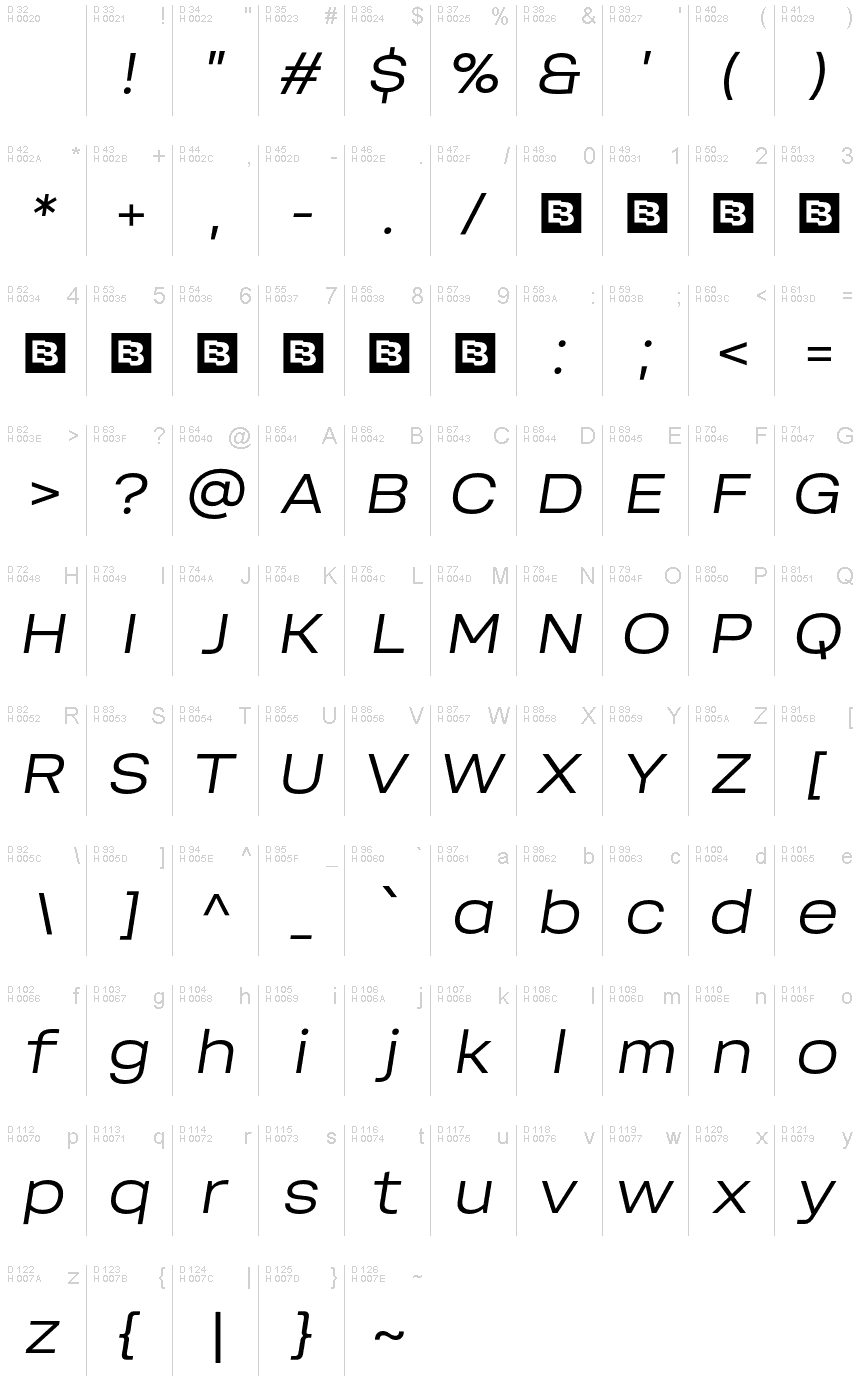
Soliden Expanded Oblique is a versatile and modern sans serif font designed by Eko Bimantara. With its semi-light weight and expanded width, this font exudes a bold yet elegant presence. Its oblique style adds a touch of sophistication to any design project.
Ideal for headlines and logos, Soliden Expanded Oblique will captivate attention in branding materials, fashion magazines, and luxury product packaging. Its versatility also makes it suitable for website headers, giving an air of contemporary professionalism.
Elevate your designs with Soliden Expanded Oblique's unique blend of strength and refinement.